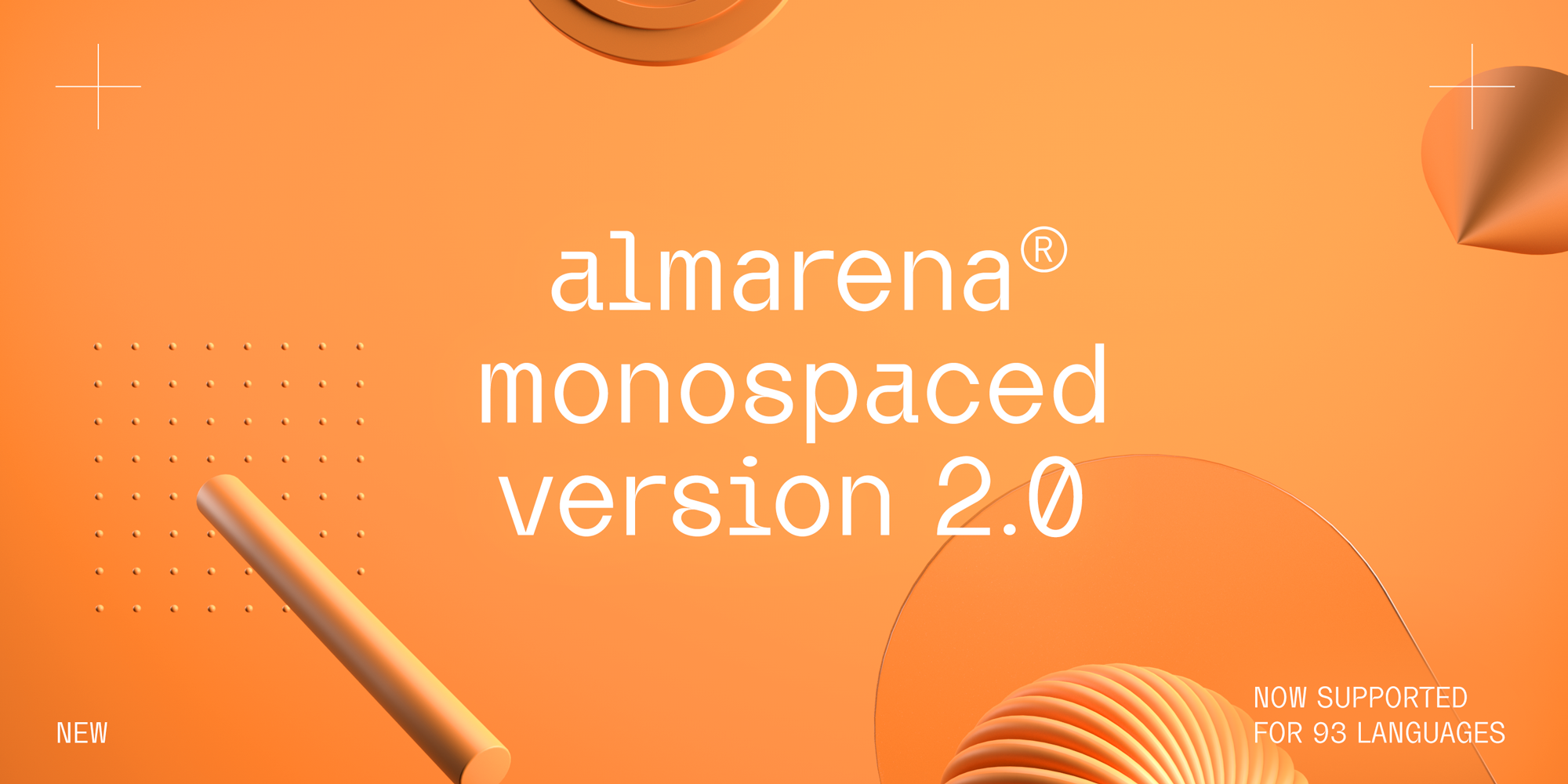
This distinctive monospace typeface is perfect for code editors, programming documentation, terminal interfaces, tech branding, developer websites, data visualization, cyberpunk designs, gaming interfaces, and modern technical publications.
Almarena Mono Font brings excitement to your design projects with its unique character and exceptional functionality. This innovative monospace font combines technical precision with distinctive style, making it perfect for developers and designers who demand both performance and personality. The font's consistent character width ensures perfect alignment in code blocks while its distinctive letterforms add visual interest to technical content.
The Almarena Mono Font family includes regular, bold, and light weights, providing comprehensive options for creating clear typographic hierarchies in technical documentation and programming environments. Each weight maintains perfect monospace alignment while offering varied visual emphasis for different content types.